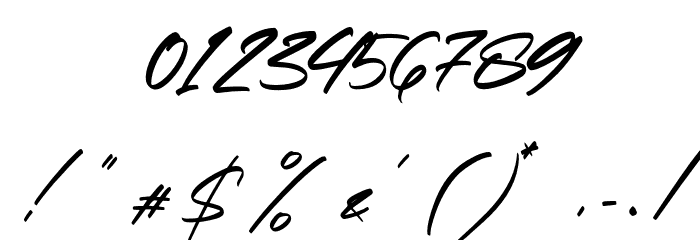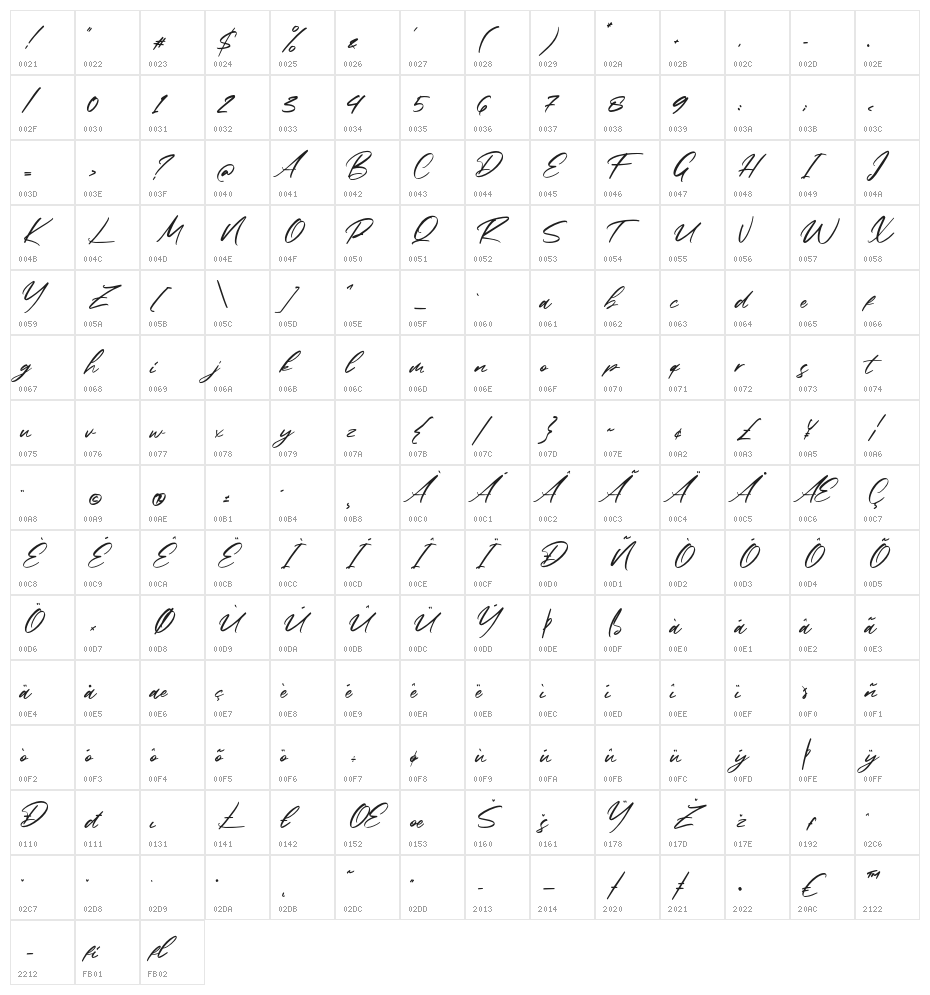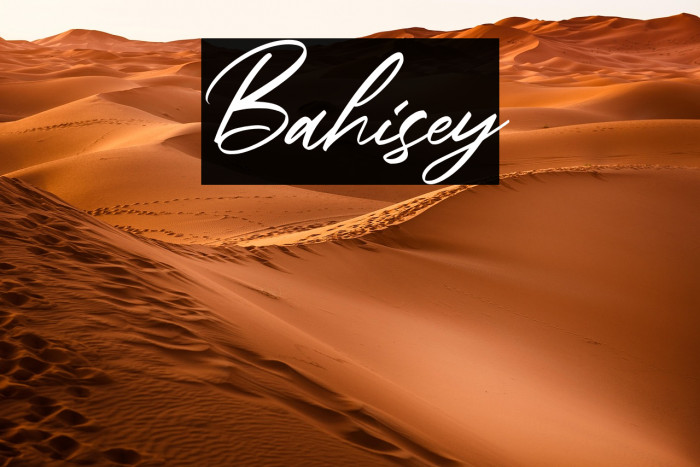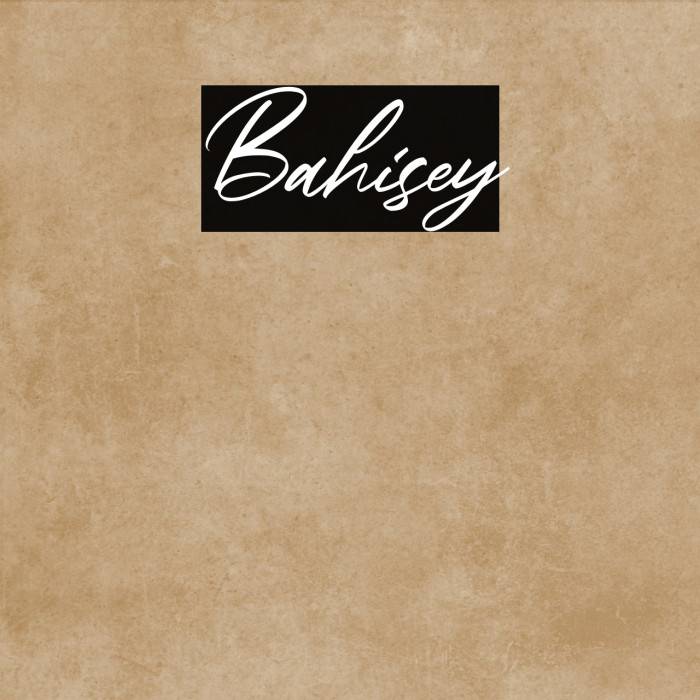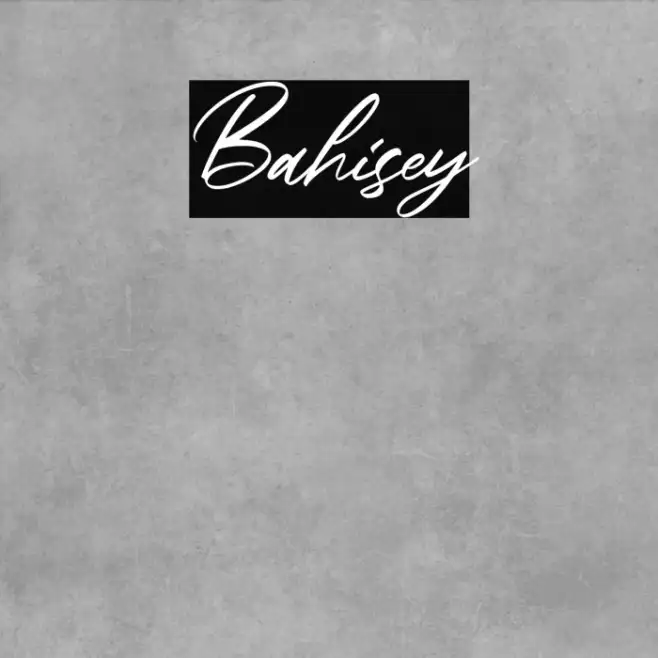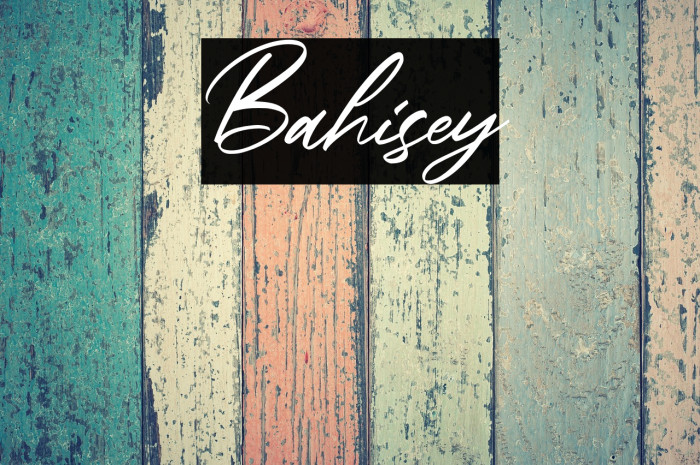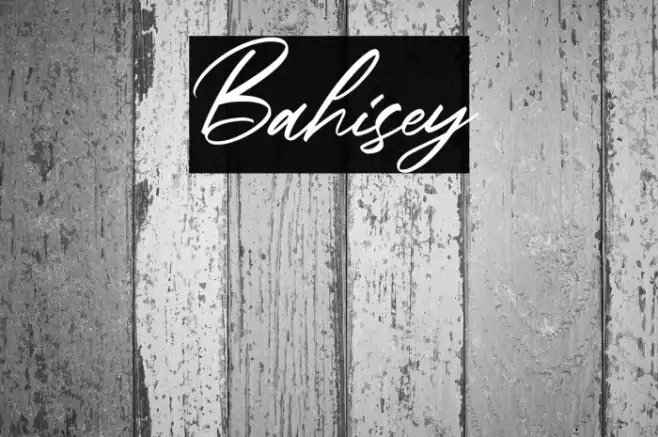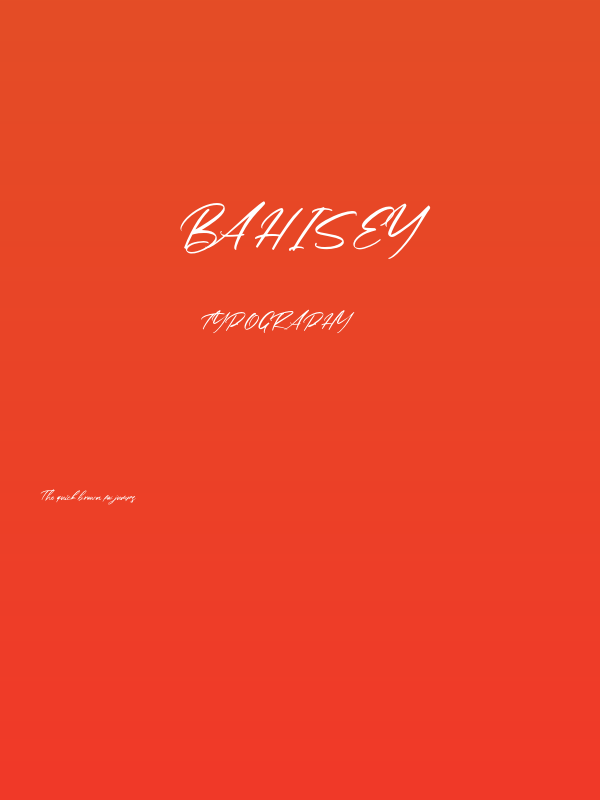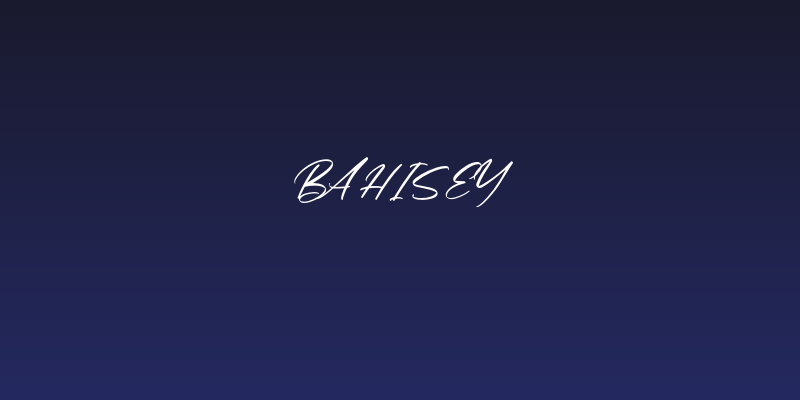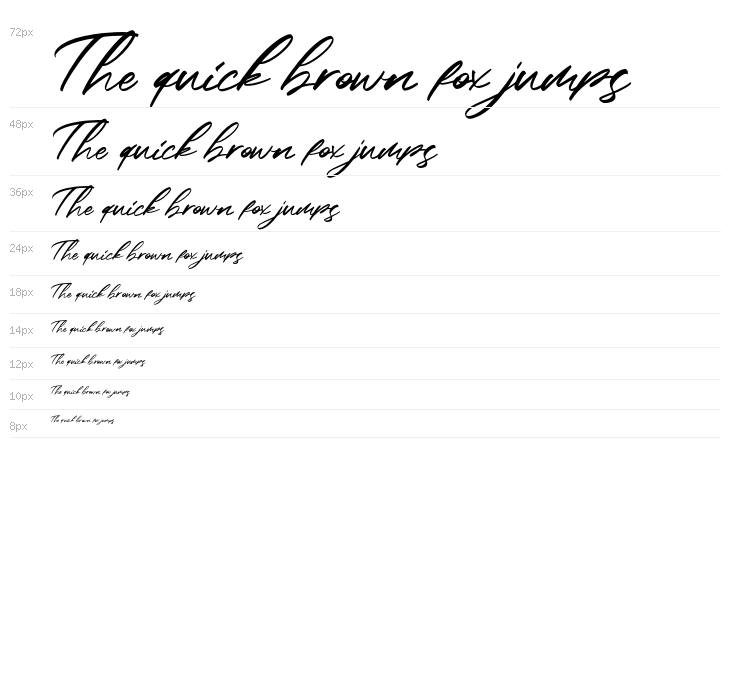
Bahisey Font
Bahisey Description
This font exudes a dynamic and fluid style, characterized by its cursive, handwritten appearance. The letters are elegantly connected, creating a sense of movement and flow. The strokes vary in thickness, adding a lively and expressive quality to the text. The uppercase letters are bold and prominent, while the lowercase letters maintain a consistent and harmonious flow. The numerals and special characters are crafted with the same attention to detail, ensuring a cohesive look across all elements. This font is ideal for projects that require a personal touch or a sense of elegance and sophistication.
| Overall Style | Elegant |
| Use Case | Logos, Invitations, Artistic projects |
| Proposed Projects | Ideal for wedding invitations, personal branding, greeting cards, and artistic projects. |